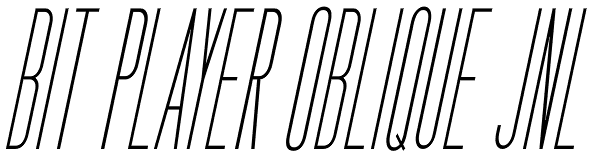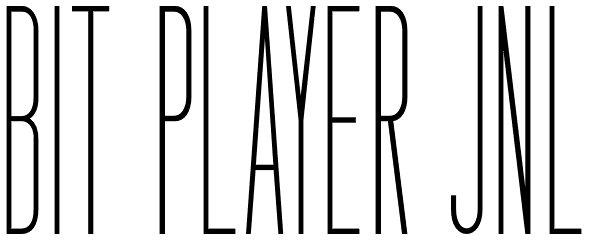
Bit Player JNL
Bit Player JNL is the extra-condensed companion font to Cast and Crew JNL, and features an additional oblique version. Useful wherever a large block of copy text needs to fit into a constrained space, Bit Player JNL can be applied to movie title...
Bit Player Oblique JNL
Bit Player JNL